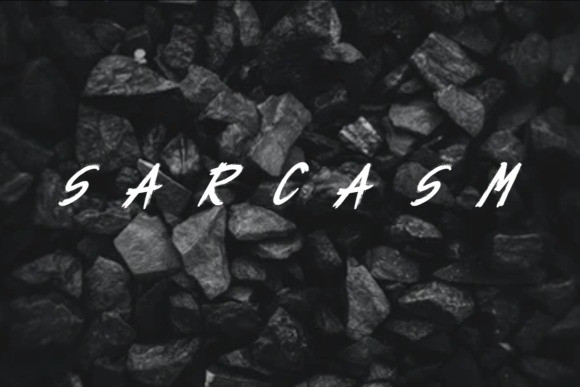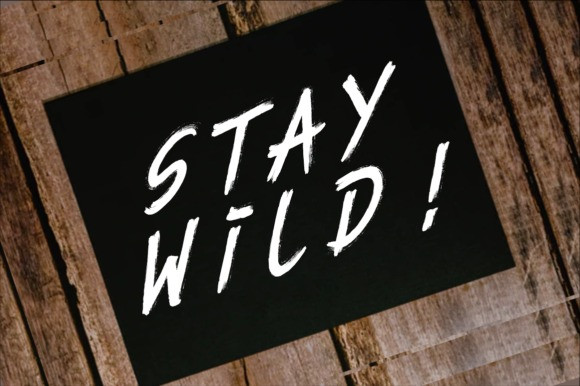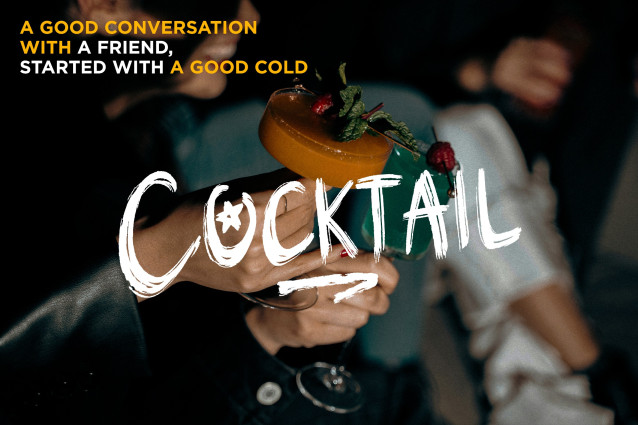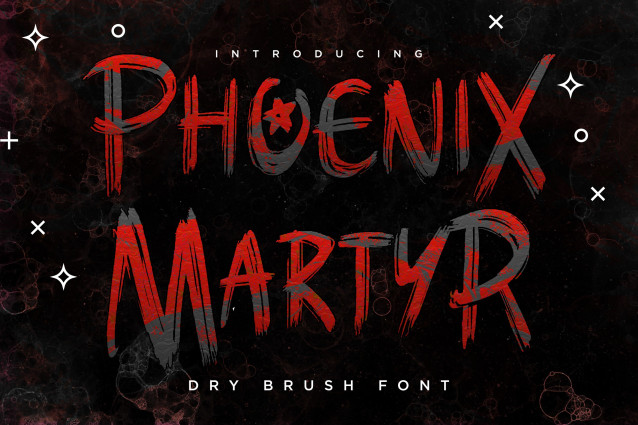
Phoenix Martyr Font
Phoenix Martyr Font is a gritty and intense dry brush font that captures raw emotion and unfiltered energy. Its handcrafted strokes and irregular edges give it a rebellious spirit, making it ideal for bold, attention-grabbing designs.